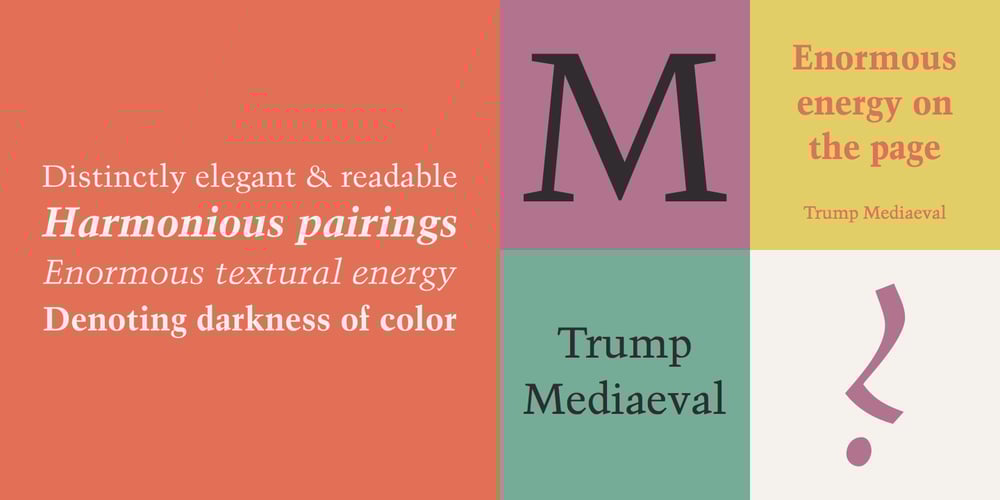
Trump Mediaeval LT Font Family was designed by Georg Trump and published by Linotype. Trump Mediaeval LT contains 5 styles and family package options. Trump Mediaeval is an Old Face font developed by Georg Trump between 1954 and 1962. All cuts have both normal and old style numbers and their robust characters make them suitable even for inferior paper. Light and legible, the open forms of the lower case letters allow this font to be legible in text with as small a point size as 5.